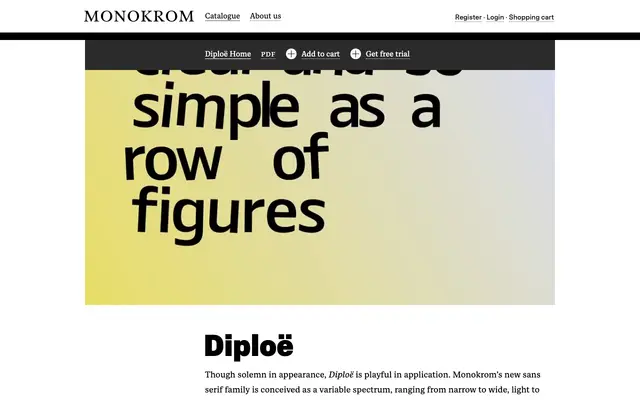
Diploë
A variable humanist sans by Frode Helland and Kostas Bartsokas, spanning three widths and seven weights with matching italics for a total of forty-two styles.
Conceived as a variable spectrum, the family draws its structure from Renaissance writing, with arches that spout high from the stem and a left-leaning contrast axis tempered by near-horizontal arch growth and symmetrical thick-thin distribution. Three named widths, Narrow, Regular and Wide, each run from Extralight to Black with italics, allowing precise control of ink density across narrow columns and long-form text alike. The extreme ends of the spectrum also lend themselves to graphic and animated applications where dramatic width contrast is needed.
Diploë is explicitly described as a lineal humanist, borrowing structure and proportions from Renaissance writing, with a left-leaning contrast axis and high-sprouting arches characteristic of humanist sans serifs.